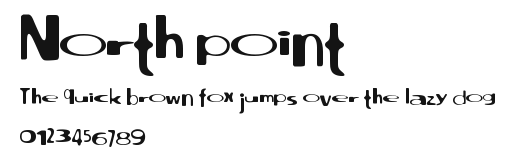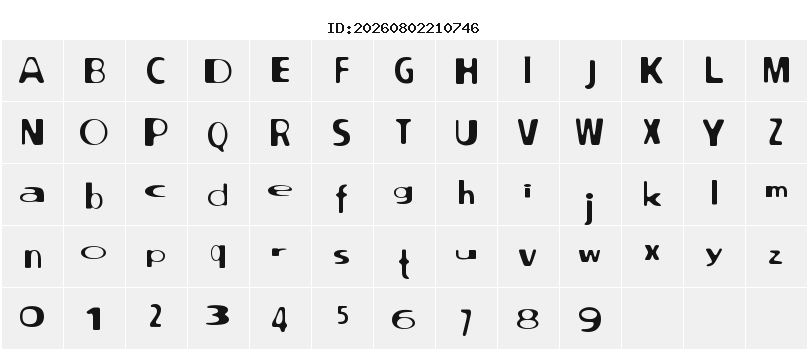
• Font Name: North point
• Designer: Chris Brown
• Description: NORTH POINT is one of three "surf style" fonts with a typical relaxed seaside feel. It is a part of the "POINT" family. Also look for WEST POINT & SOUTH POINT.
North point.ttf is a modern, elegant sans-serif font designed for ultimate readability and visual harmony. Perfect for branding, headlines, web design, and print materials.